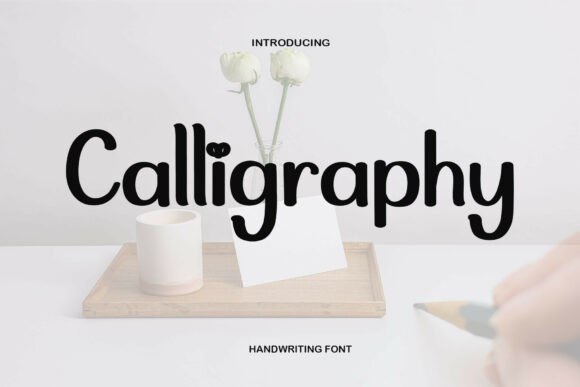
Unlock the Art of Handwritten Elegance
There’s something special about holding a pen and letting the ink flow onto the page. It’s a moment of connection to the physical world, where imperfections become beauty and the act of creation becomes meditation. For designers, this feeling is a constant quest – to capture the essence of human touch in digital form. Enter the Calligraphy Font, a modern handwritten font that brings the warmth of handwritten letters to your designs.
This carefully crafted font is designed to add a touch of personality to your branding, journaling, and social media graphics. With its clean, rounded strokes and playful touches, it’s the perfect choice for creating a friendly, handcrafted vibe. Whether you’re a seasoned designer or a creative enthusiast, the Calligraphy Font is a valuable addition to your toolkit, offering a unique twist on classic handwriting styles without sacrificing readability.
Calligraphy Font Key Features
- Unique Characteristics: Calligraphy fonts are known for their ornate and decorative style, often featuring flourishes, swashes, and other embellishments that add a touch of elegance and sophistication to text.
Calligraphy Font Review
Overall, I think the Calligraphy Font is a beautiful and elegant addition to any design project. It’s perfect for creating a sophisticated and luxurious feel. ✨ The font is highly customizable, allowing you to adjust the stroke width, spacing, and other settings to get the perfect look. ✨ The font also includes a wide range of ligatures, which makes it perfect for typesetting and creating beautiful text arrangements.
One of the standout features of the Calligraphy Font is its versatility. It’s suitable for a wide range of applications, from wedding invitations and greeting cards to business cards and brochures. ✨ It’s also a great choice for creating social media graphics, especially for Instagram and Facebook.
While the Calligraphy Font is generally a great choice, there are a few limitations to be aware of:
- ⚠️ The font may not be suitable for large blocks of text, as it can be difficult to read. It’s best used for short paragraphs or individual lines of text.
In conclusion, I think the Calligraphy Font is a great choice for designers who want to add a touch of elegance and sophistication to their projects. While it may have a few limitations, it’s a beautiful and highly customizable font that’s perfect for creating stunning designs.
Unlocking the Art of Calligraphy Font
Project 1: Handwritten Wedding Invitations
Create a unique and romantic wedding invitation that stands out from the rest. Use Calligraphy Font to add a touch of elegance and sophistication to the invitation.
Project 2: Artistic Quote Posters
Create a visually striking poster that showcases a beautiful quote or phrase. Use Calligraphy Font to add a touch of artistry and creativity to the design.